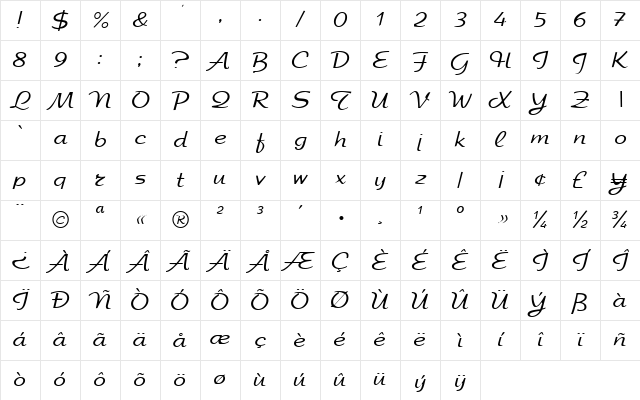
ElegantElite Light
Complete ElegantElite Light glyph index. Displaying only characters natively supported by ElegantElite Light font.
Design Context for ElegantElite
ElegantElite is a composed and adaptable typeface that performs quietly and consistently across a wide range of design contexts. Its slender proportions lend an understated elegance to any composition.